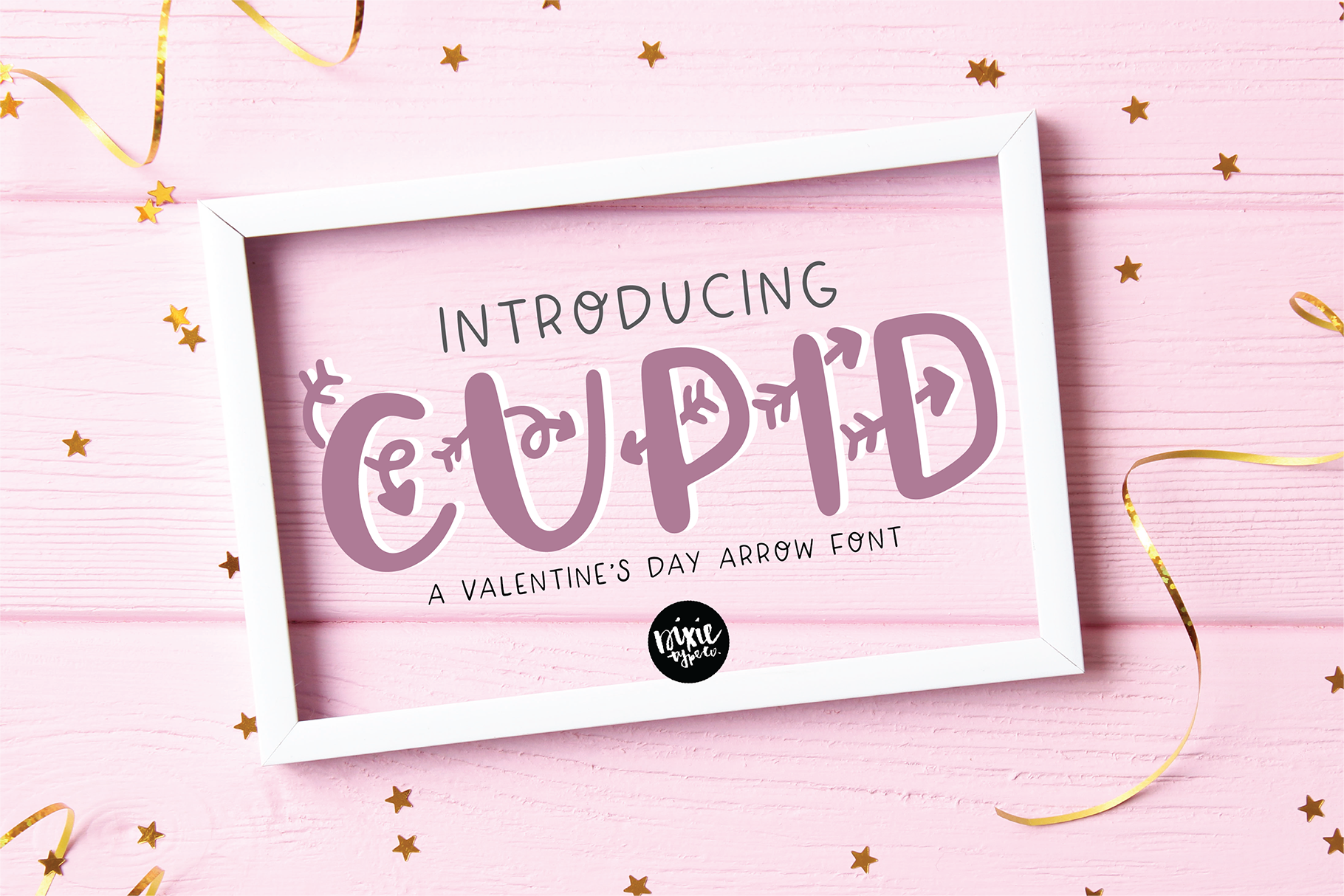
CUPID a decorative Valentine's Day font
This download includes the installable .OTF version of this font. This font was made specifically for your Valentine's/Wedding projects. Use it for Valentine's cards, crafts for decor, invitations, and more! This font includes basic punctuation and numbers.